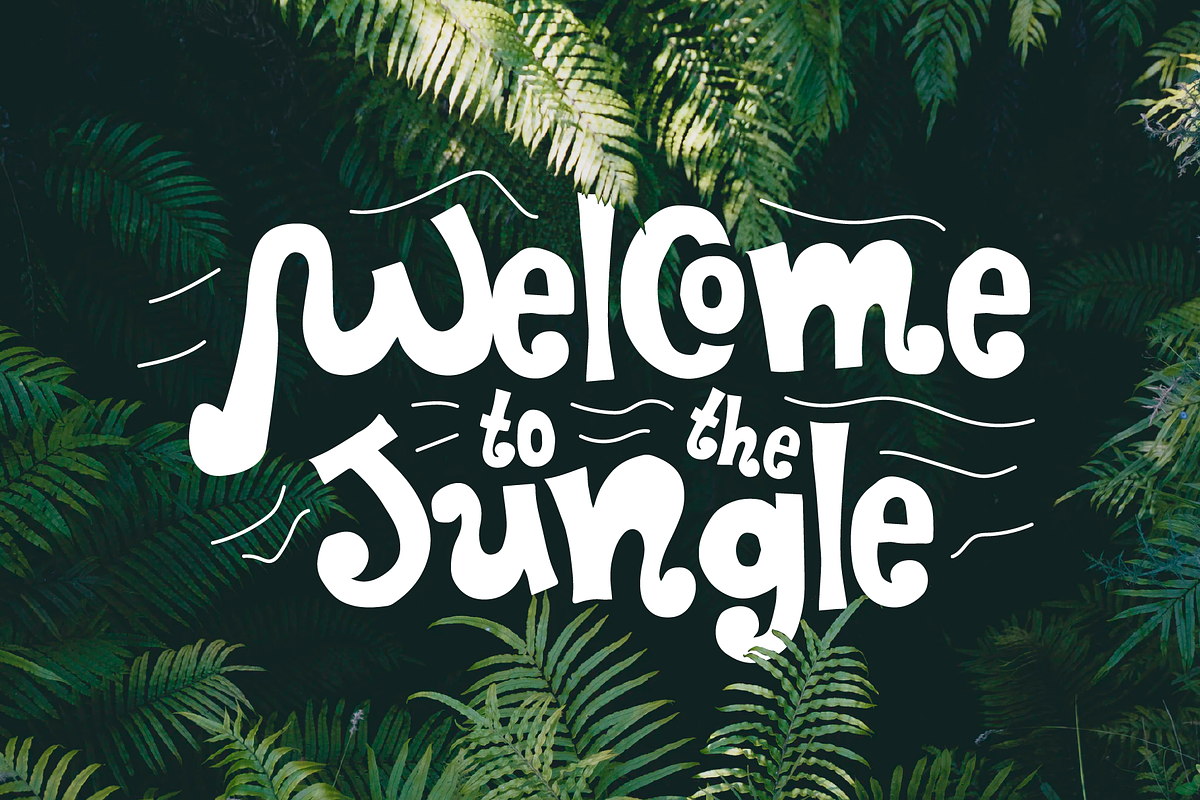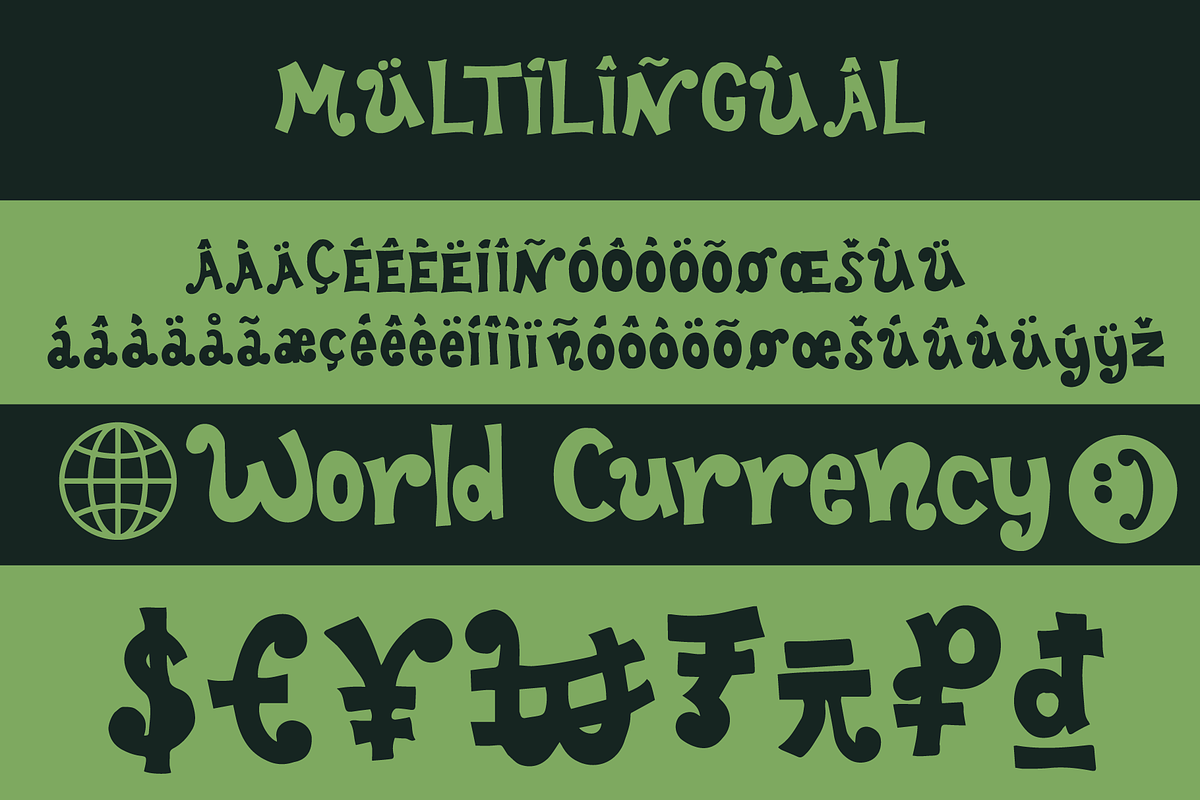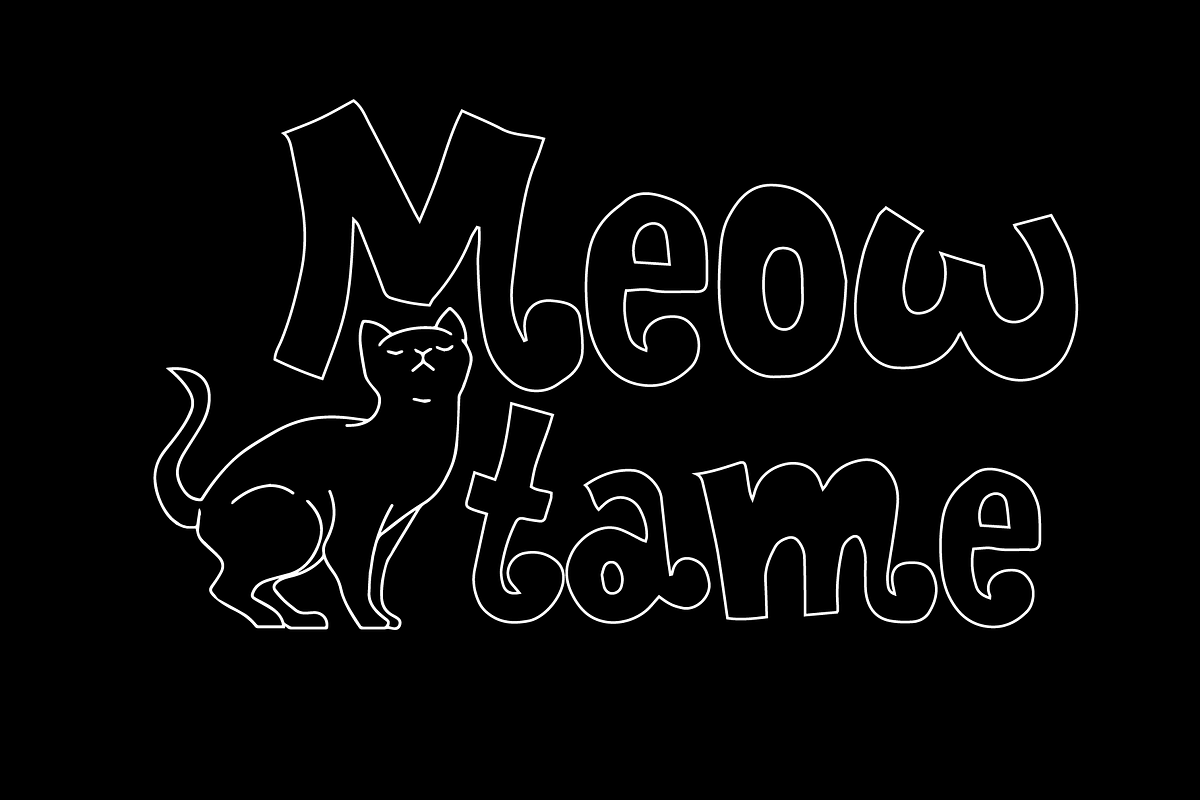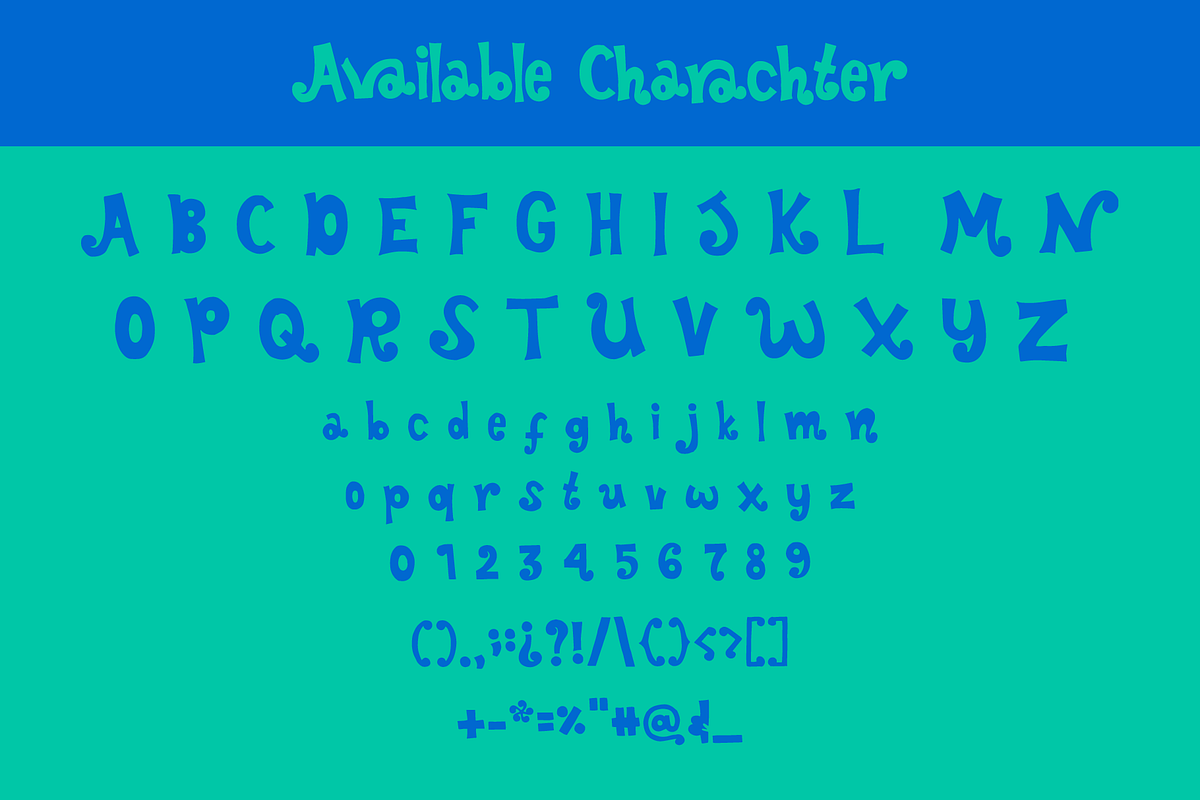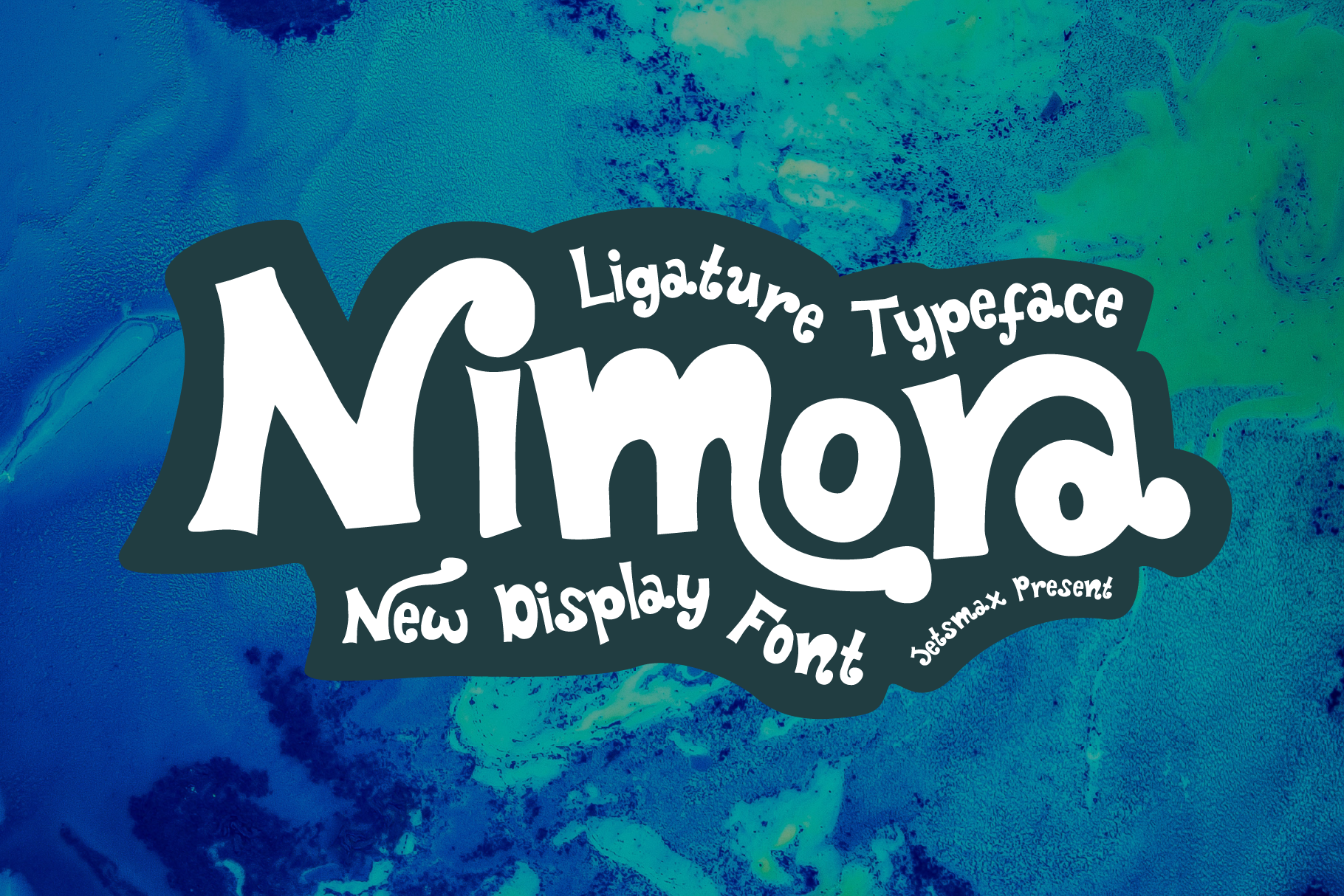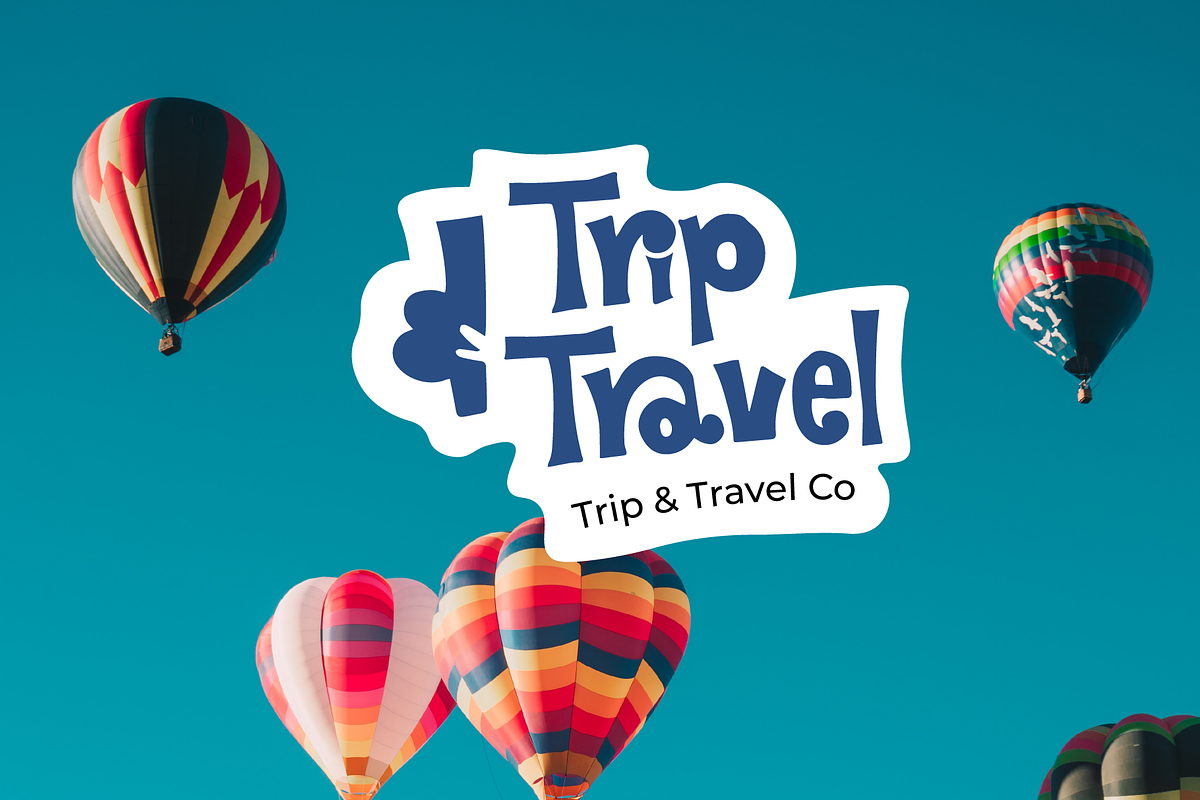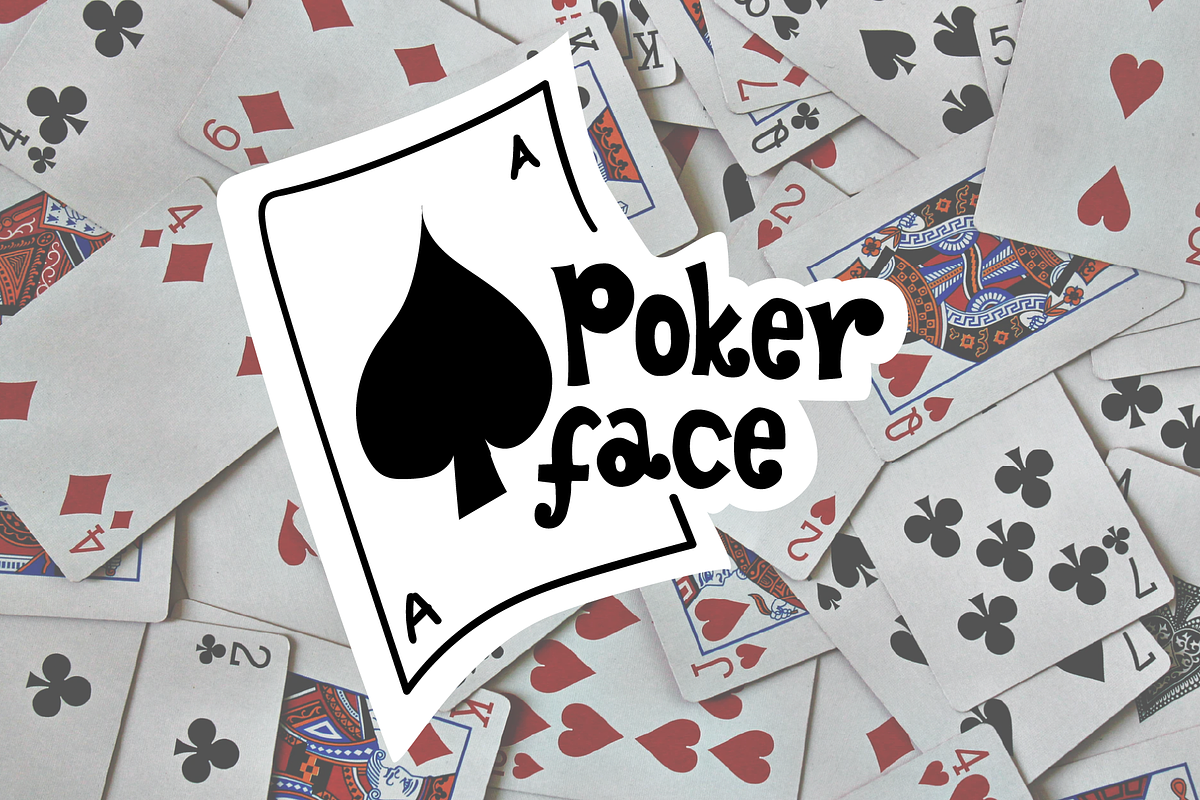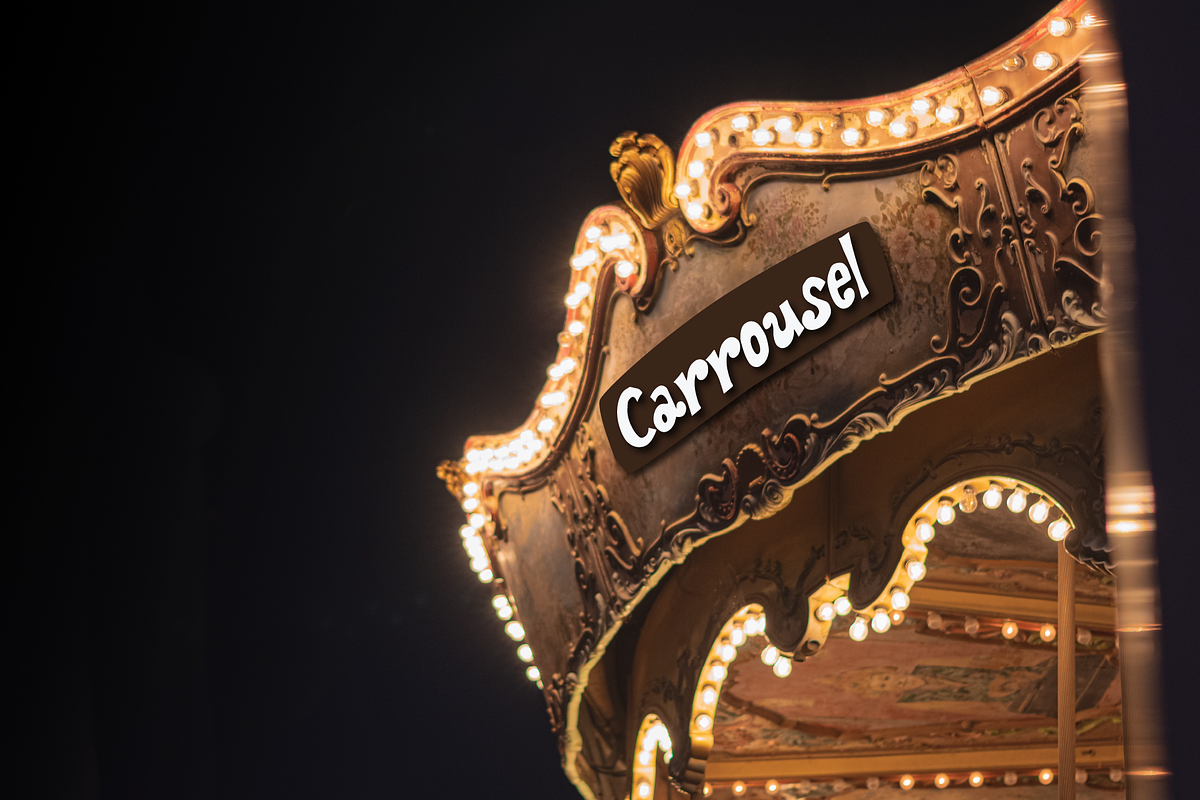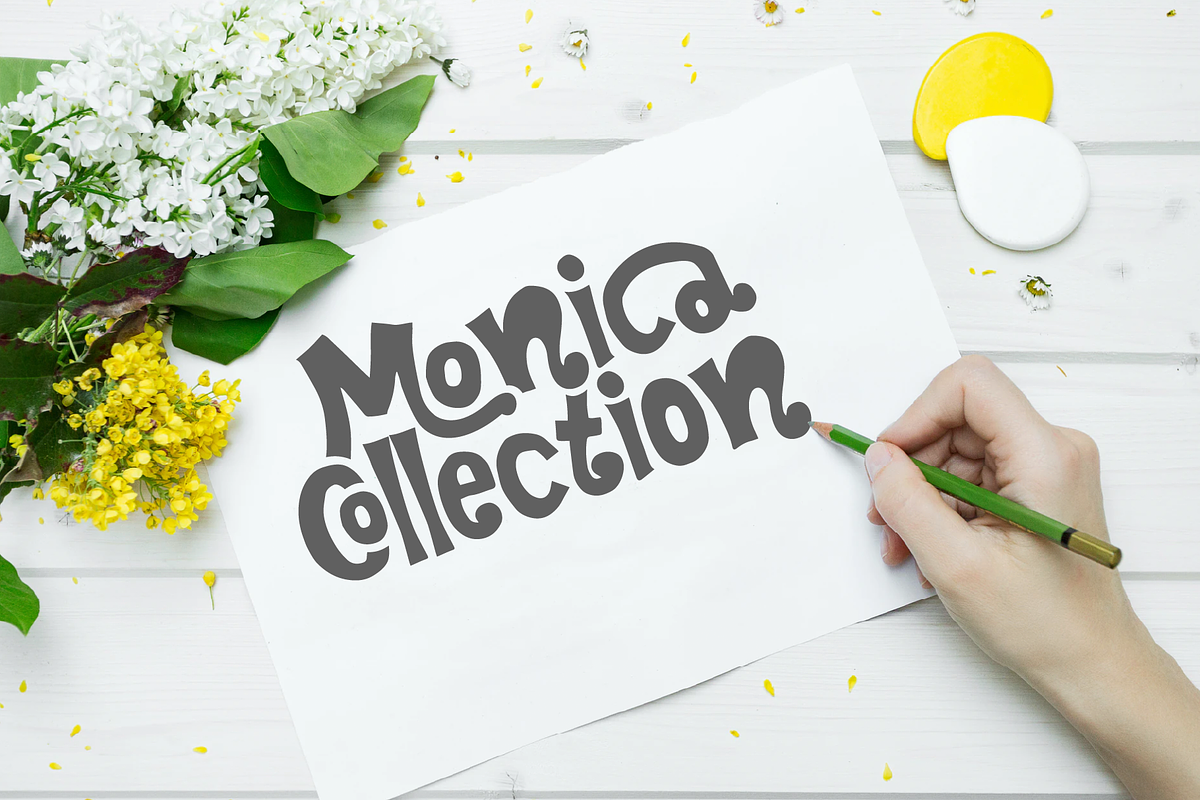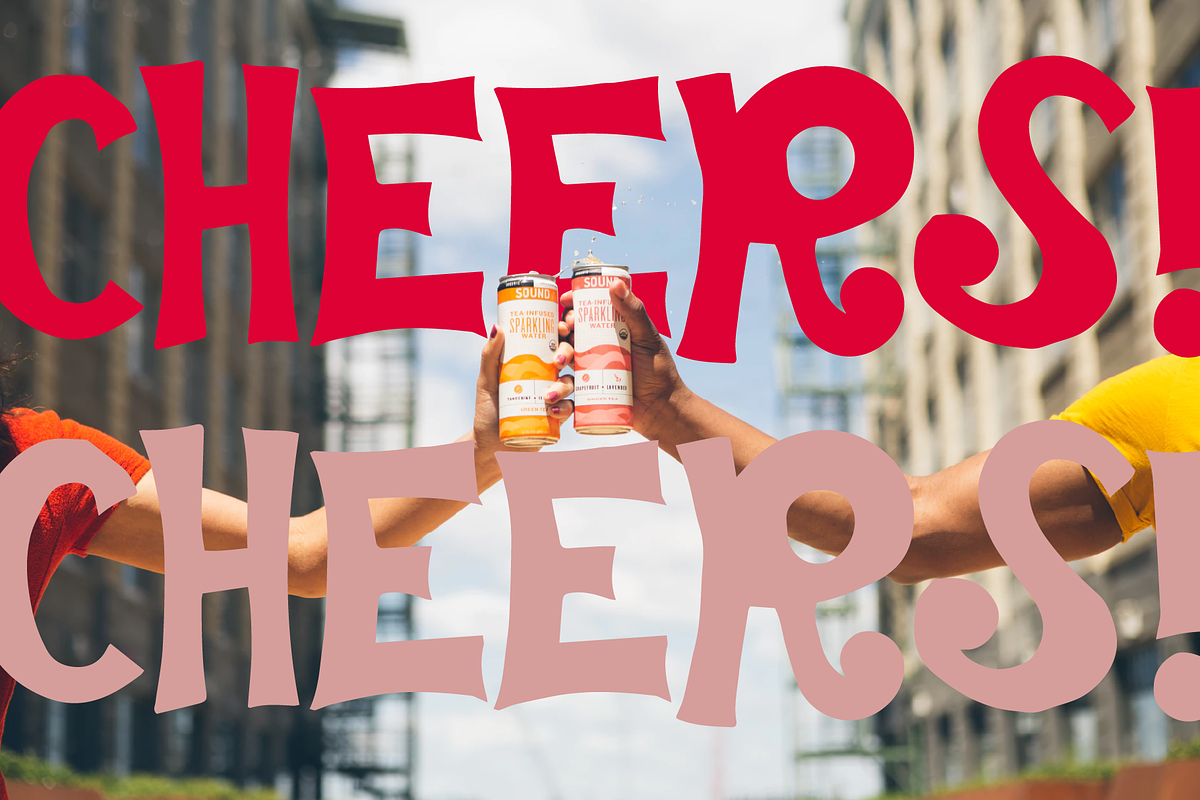
Nimora - Ligature Typeface
Nimora is inspired by the freshness of cold water in a hot summer day, splash! With its unique handwriting style, this ligature typeface will show the fun side of your projects.
Nimora Font is suitable for variety of branding projects, logos, parties and events, social media posts, advertisements, and so much more. Be ready to impress everyone with Nimora!
- Ligature & Unique